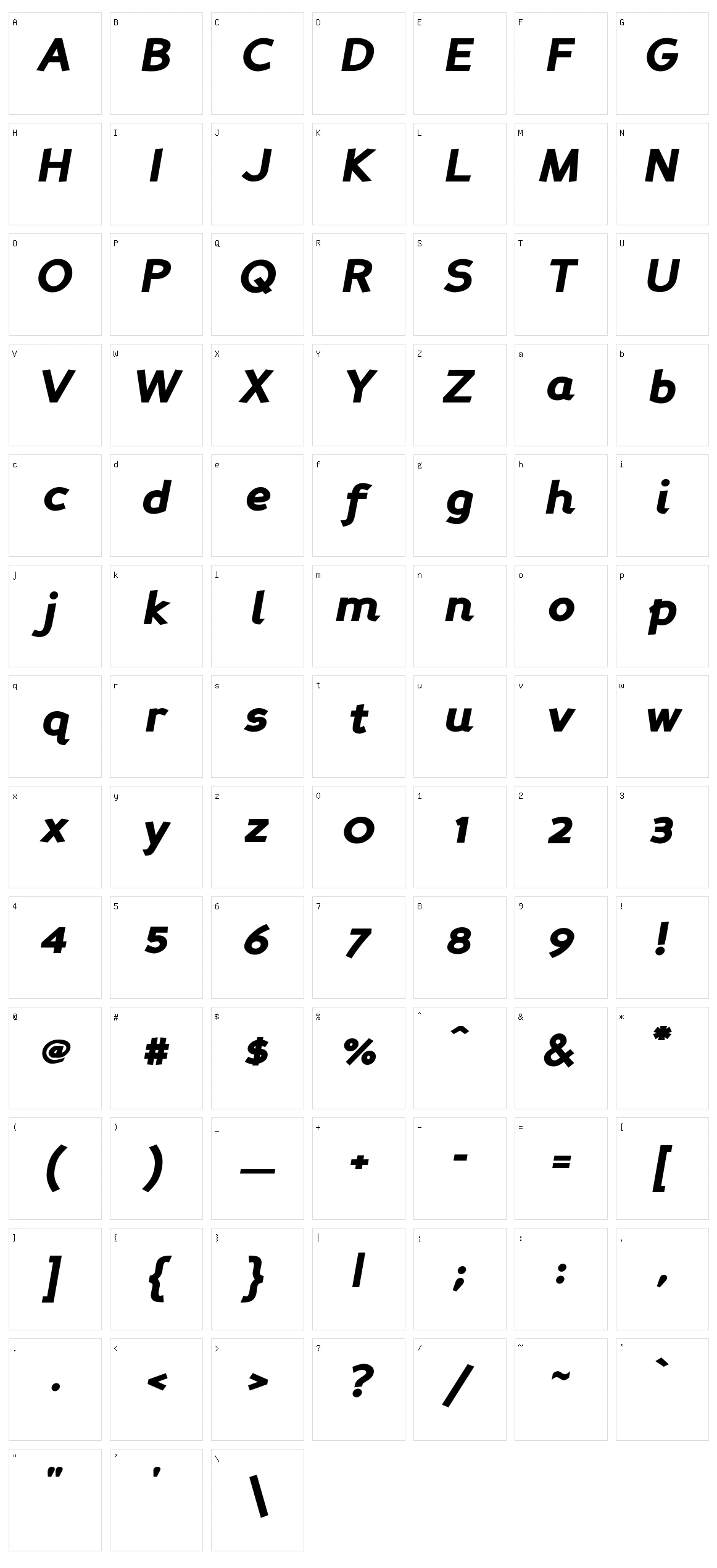
The free font Perspective Sans is carefully designed by Daniel Midgley, showcasing a thoughtful balance of creativity and usability and falls under the Sans serif font style. When you download the ZIP file, it contains only 92.04 KB of font files, making it lightweight and quick to download. Please review the license details below to understand permitted usage and distribution rights. If license information is not available, we recommend using this font for personal projects only or contacting the author directly for commercial usage permissions.